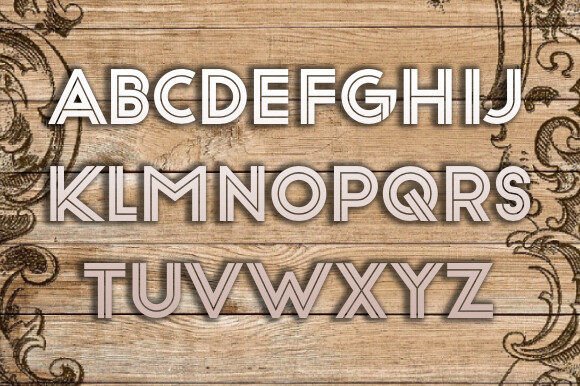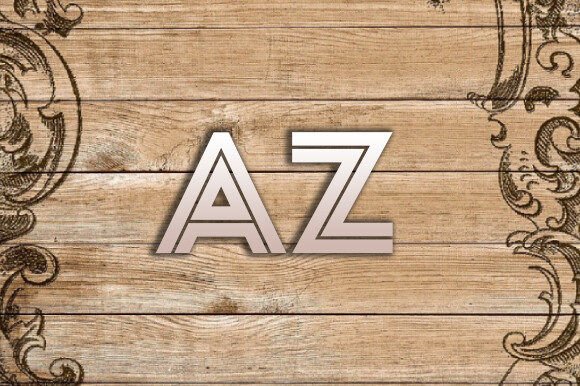
Introducing Bushel Font: The Ultimate Retro Typeface for Your Designs
Are you tired of using the same old fonts in your designs? Look no further! Bushel Font is here to revolutionize your creative projects with its unique retro charm. This awesome typeface is perfect for designers and crafters who want to add a touch of nostalgia to their work. In this article, we’ll dive into the world of Bushel Font and explore its features, uses, and benefits.
What is Bushel Font?
Bushel Font is a carefully crafted retro typeface that exudes a sense of nostalgia and playfulness. Its distinctive design makes it stand out from the crowd, adding a touch of personality to any project. Whether you’re working on a poster, flyer, t-shirt, mug, or sticker, Bushel Font is the perfect choice.
Key Features of Bushel Font
• Retro aesthetic: Bushel Font boasts a unique retro style that’s sure to grab attention.
• Highly versatile: Use it on various design projects, from posters and flyers to t-shirts and stickers.
• Easy to read: Despite its retro vibe, Bushel Font remains clear and legible, making it perfect for headlines and body text.
• Customizable: Experiment with different colors, sizes, and styles to make Bushel Font your own.
Uses of Bushel Font
The possibilities are endless when it comes to using Bushel Font. Here are some ideas to get you started:
• Posters and flyers: Create eye-catching promotional materials that stand out from the crowd.
• T-shirts and apparel: Add a touch of personality to your designs with Bushel Font.
• Mugs and water bottles: Make your designs pop with this unique typeface.
• Stickers and labels: Use Bushel Font to create fun and quirky stickers and labels.
• Social media graphics: Add a retro touch to your social media posts and stories.
Benefits of Using Bushel Font
So, why choose Bushel Font for your designs? Here are some benefits to consider:
• Unique style: Stand out from the crowd with Bushel Font’s distinctive retro aesthetic.
• Time-saving: No need to spend hours designing a custom typeface – Bushel Font is ready to use.
Tips for Using Bushel Font
To get the most out of Bushel Font, here are some tips to keep in mind:
• Experiment with colors: Try out different colors and combinations to find the perfect look.
• Play with sizes: Use Bushel Font in various sizes to create visual interest.
• Mix and match: Combine Bushel Font with other typefaces for a unique look.
• Keep it simple: Don’t overcomplicate your design – let Bushel Font be the star.
In conclusion, Bushel Font is an awesome retro typeface that’s perfect for designers and crafters looking to add a touch of nostalgia to their work. With its unique style, versatility, and ease of use, Bushel Font is sure to become a staple in your design toolkit. So why wait? Download Bushel Font today and start creating amazing designs that stand out from the crowd!